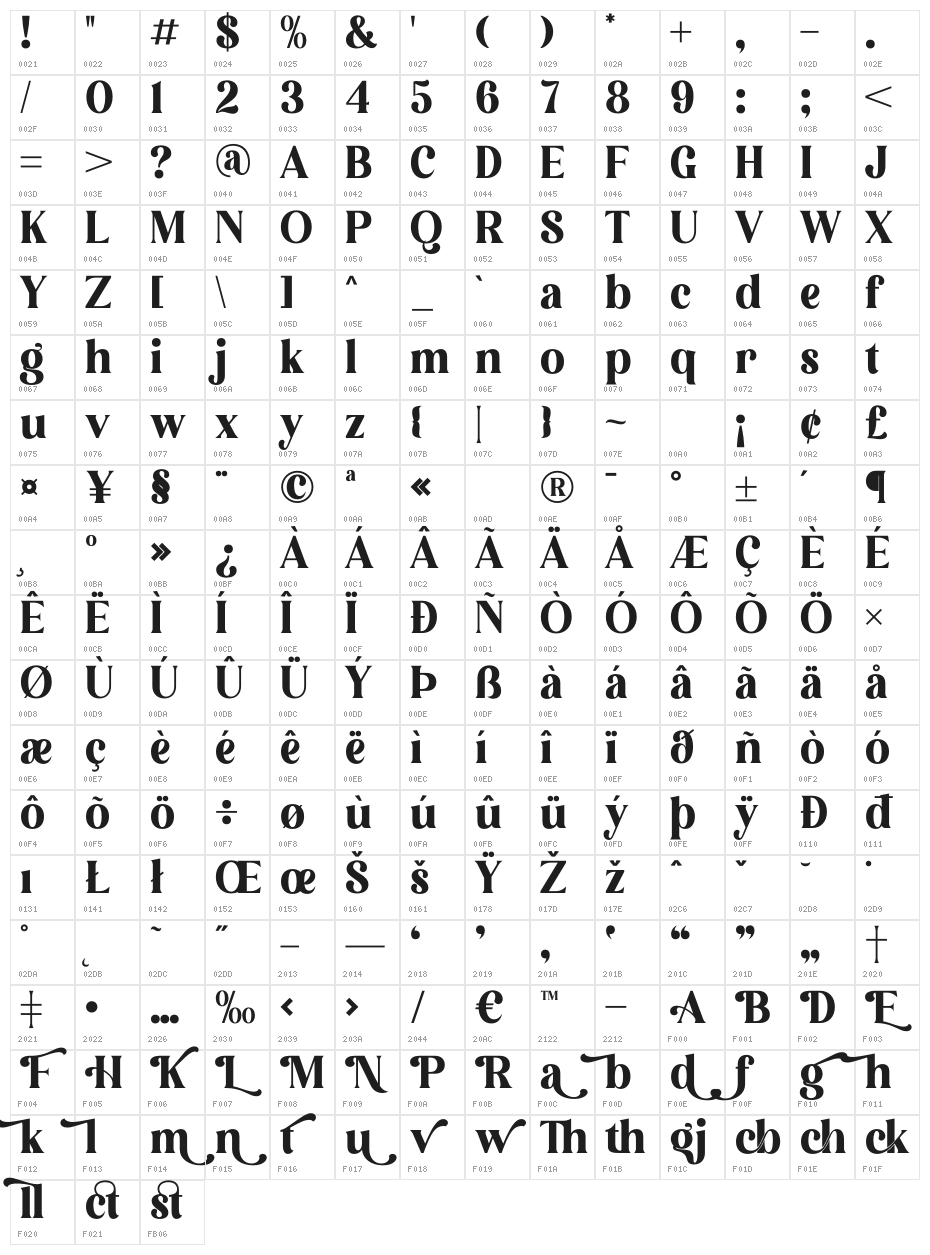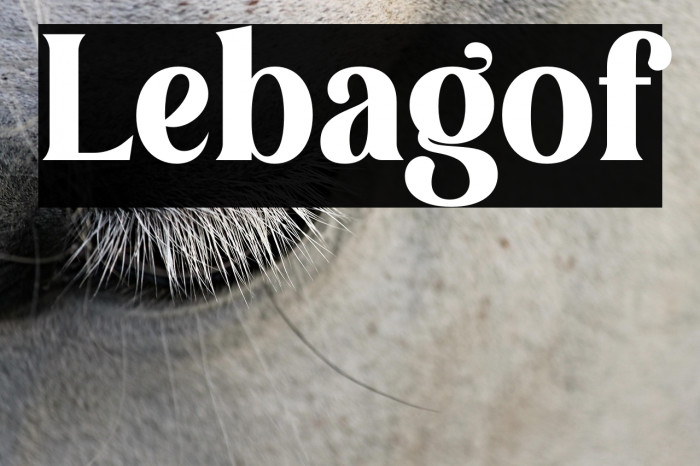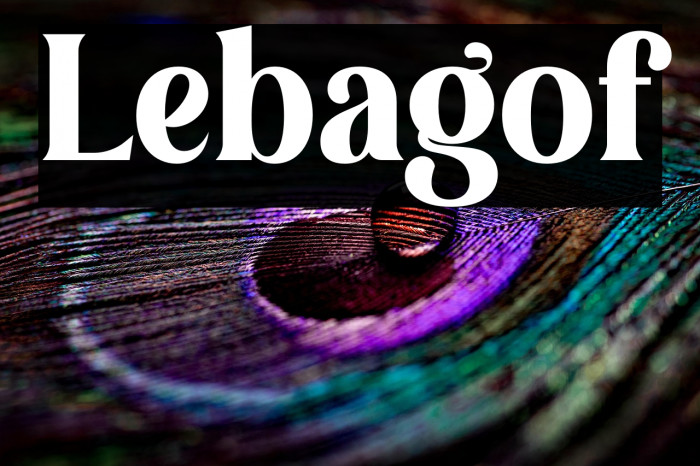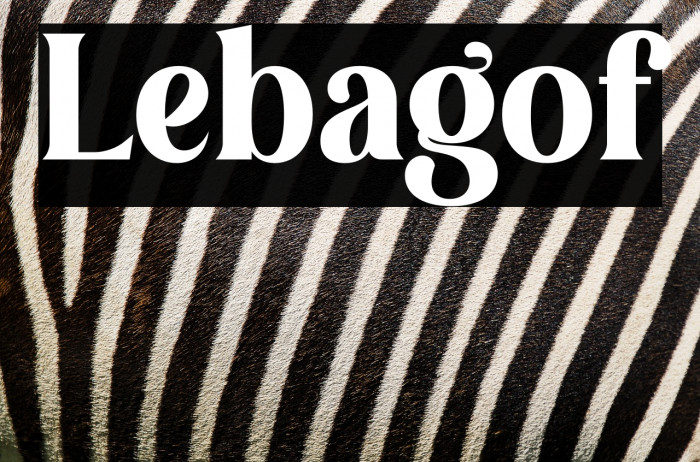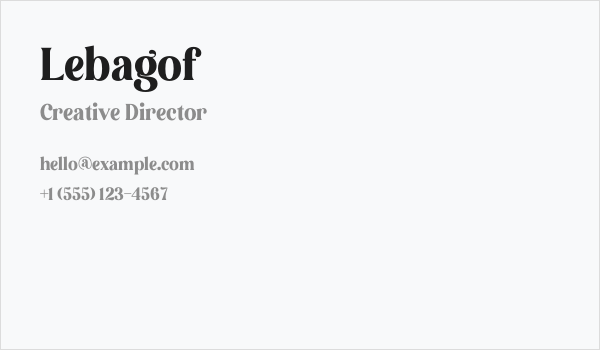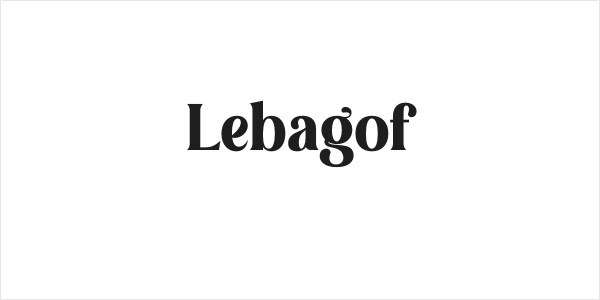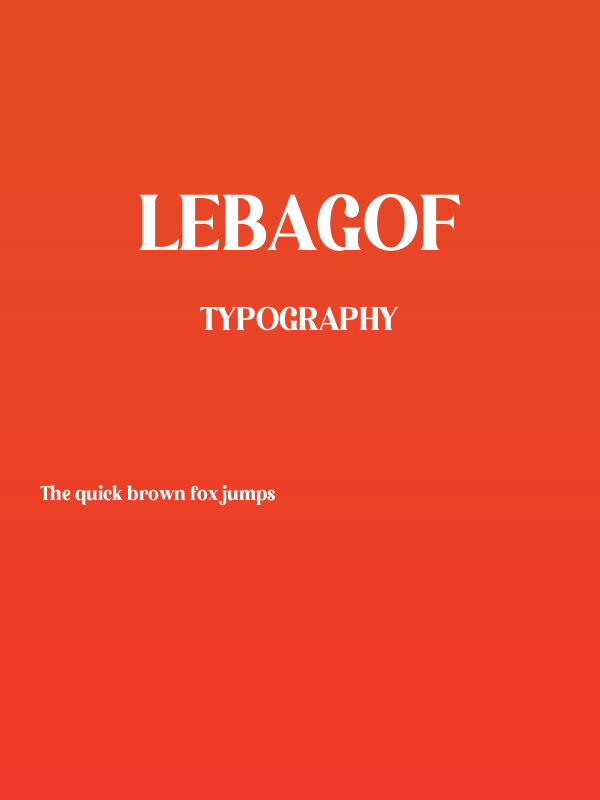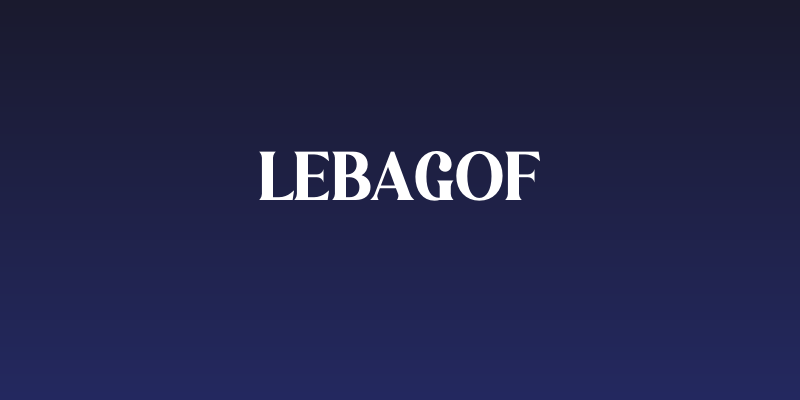
Lebagof Font
Lebagof Description
This font features bold, dramatic strokes with high contrast between thick and thin lines, giving it a strong and impactful appearance. The serifs are pronounced and slightly curved, adding a touch of elegance and sophistication. The uppercase letters are tall and commanding, while the lowercase letters maintain a consistent style with rounded forms. The numerals are equally bold, ensuring visibility and emphasis. Special characters are designed to match the overall boldness, making them stand out effectively. This font is ideal for making a statement in any design project.
| Overall Style | Classic |
| Proposed Projects | Ideal for headlines, posters, branding, and editorial design where a strong visual impact is desired. |